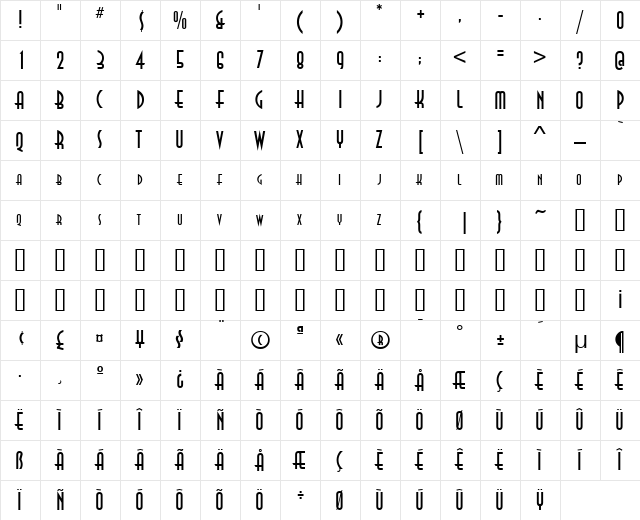
Maitre d' Normal Free Font
Maitre d' Normal
Maitre d' Family
Complete Maitre d' Normal glyph index. Displaying only characters natively supported by Maitre d' Normal font.
Design Context for Maitre d'
Maitre d' is a composed and adaptable typeface that performs quietly and consistently across a wide range of design contexts.